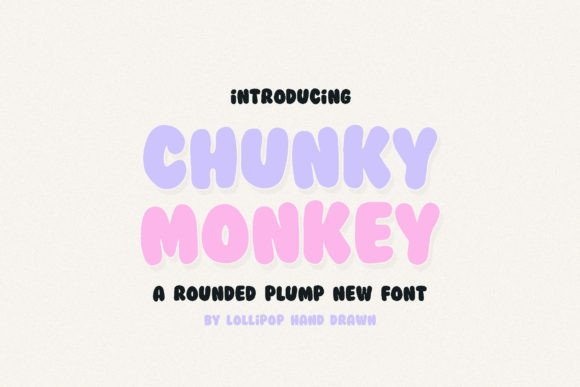
Are you looking for a fun and eye-catching font that will make your designs stand out? Look no further than Chunky Monkey Font! Created by the talented Lollipop Hand Drawn, this display font is perfect for anyone looking to add a touch of playfulness and whimsy to their designs.
With its bold and chunky letters, Chunky Monkey Font is sure to catch the eye of anyone who sees it. It's the perfect font for monograms on Cricut, making it a popular choice for crafters and DIY enthusiasts alike.
But Chunky Monkey Font is more than just a pretty face. It's also highly versatile and can be used on a wide range of design projects. Whether you're creating posters, invitations, or social media graphics, this font is sure to make your message pop.
One of the best things about Chunky Monkey Font is its suitability for children's designs. With its playful and cheerful vibe, it's the perfect font for creating designs for kids' parties, school events, or anything else that needs a touch of fun.